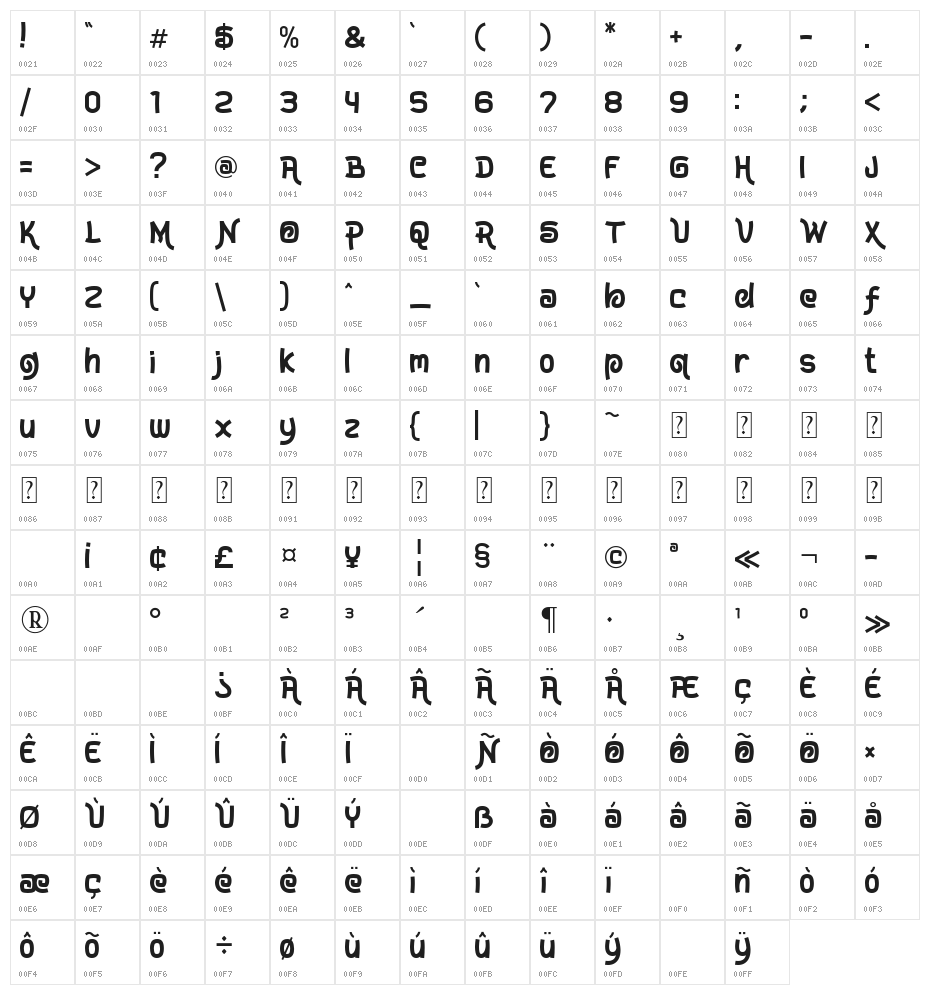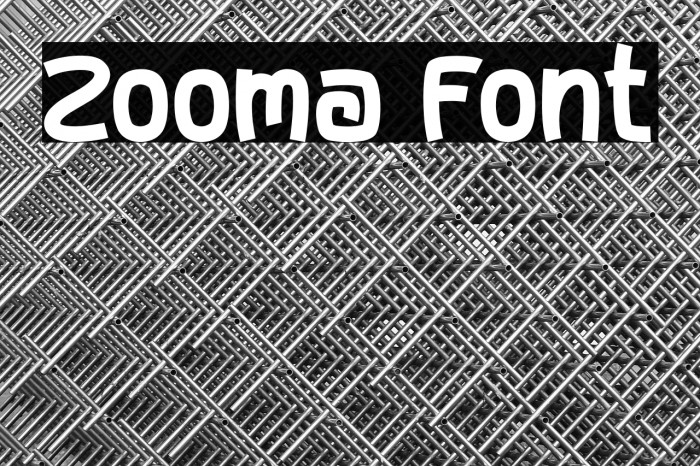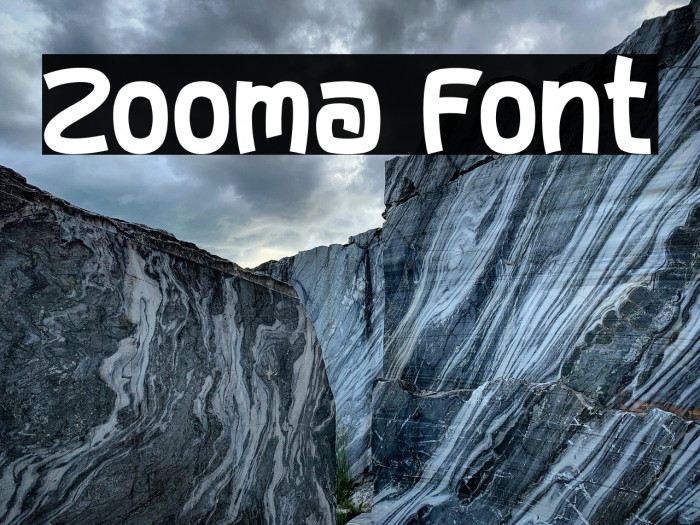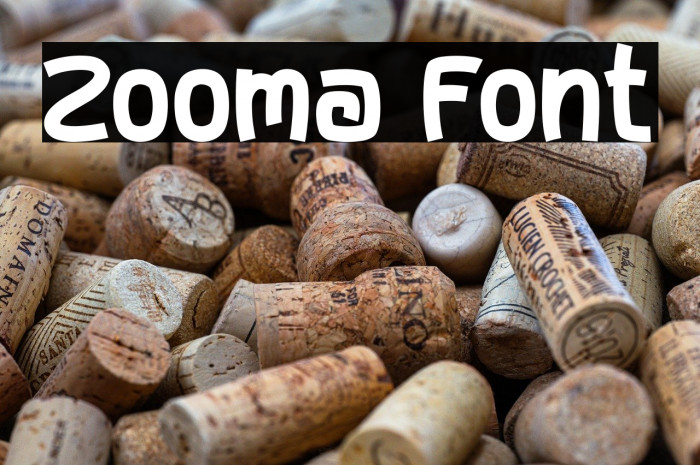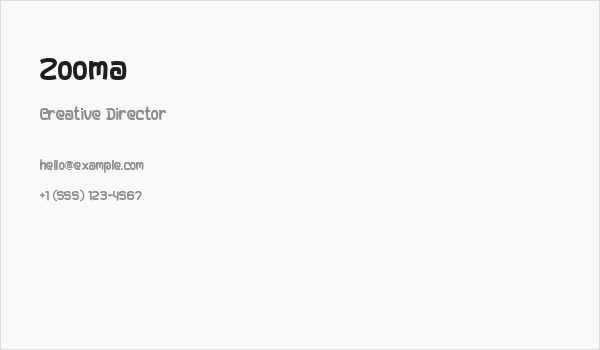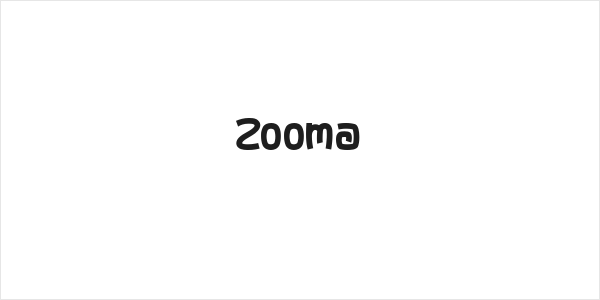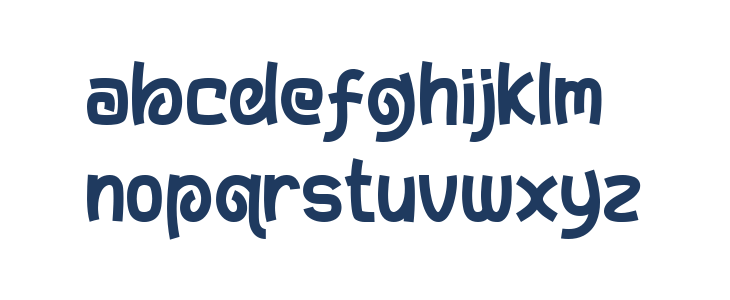
Zooma Font
Zooma Description
This font features a bold and playful design with a distinctively quirky style. The characters are rounded and have a whimsical flair, with exaggerated curves and unique shapes that give it a lively and energetic appearance. The uppercase letters are particularly striking, with some incorporating spiral elements that add to the font's dynamic feel. The lowercase letters maintain this playful theme, ensuring consistency throughout the typeface. Numbers and special characters are designed with the same boldness and creativity, making this font ideal for projects that require a fun and engaging visual impact.
ZOOMA UPPERCASE
ZOOMA LOWERCASE
ZOOMA OTHER CHARS
| Overall Style | Playful, Quirky, Energetic |
| Proposed Projects | Ideal for children's books, playful branding, posters, and creative advertising campaigns. |